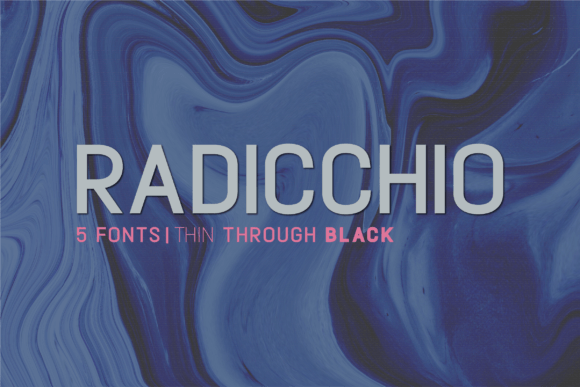
Welcome to the world of Radicchio, a sans serif font family that's more than just a collection of letters; it's an invitation to embark on a typographic journey where elegance, modernity, and versatility intertwine. Designed by the talented Huntype, Radicchio is a symphony of five distinct weights—THIN, LIGHT, REGULAR, BOLD, and BLACK—each possessing its own unique personality, yet united by a shared commitment to excellence. With Radicchio, you hold the key to unlocking a world of boundless creativity, where your designs and content will radiate with sophistication and contemporary flair.
Envision the possibilities as you navigate through the spectrum of Radicchio's weights. The THIN weight, with its delicate strokes and ethereal presence, adds a touch of grace and subtlety to your projects, like a whisper carried by the wind. For understated elegance, the LIGHT weight beckons, its refined lines and understated charm lending a timeless quality to your creations. As you progress through the REGULAR weight, you'll discover a harmonious balance between form and function, a versatile workhorse that effortlessly adapts to a multitude of design challenges.
For those seeking impact and boldness, the BOLD weight awaits, its commanding presence demanding attention and making a statement. And when you need your words to resonate with thunderous authority, the BLACK weight stands ready, its solid and unwavering strokes leaving an indelible mark on the hearts and minds of your audience. Radicchio's seamless blend of sophistication and contemporary style elevates your projects to new heights, ensuring they shine with distinction in a crowded digital landscape.
But Radicchio is more than just a font family; it's a catalyst for your creative spirit. Whether you're a seasoned designer seeking to elevate your work or a content creator yearning to captivate your audience, Radicchio is your trusted companion, ready to transform your ideas into visual masterpieces. Its versatility knows no bounds, effortlessly adapting to a kaleidoscope of applications—from branding and marketing materials to web design and social media graphics. With Radicchio, the possibilities are endless, and the only limit is your imagination.
So, embrace the allure of Radicchio, let its elegant curves and captivating lines ignite the fire of your creativity. Allow your designs and content to bask in the glow of this contemporary masterpiece, and witness the transformation as ordinary words and images blossom into works of art that resonate with your audience.